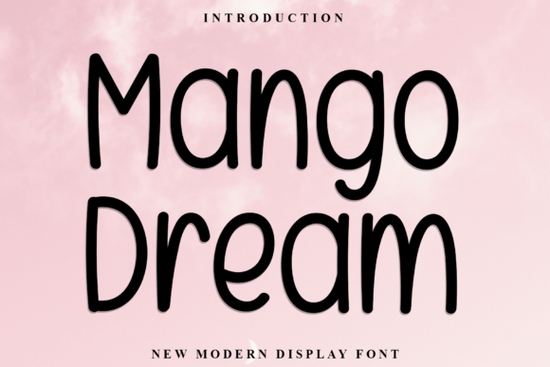
Mango Dream Font is a beautifully crafted handwritten font that brings a soft, personal touch to any design project. Whether you're working on logos, branding materials, or creative quotes, this font adds a unique and elegant flair. Its flowing letters and delicate details make it perfect for a wide range of applications, from digital art to print projects.
Designed with versatility in mind, Mango Dream Font is ideal for designers, crafters, and small business owners looking for a font that stands out without being overwhelming. The font’s natural, hand-drawn style gives your work a warm and inviting feel, making it a great choice for anything from wedding invitations to social media graphics.
What Makes Mango Dream Font Stand Out?
One of the key features of Mango Dream Font is its distinctive character. Each letter has a unique shape and flow, giving your designs a personalized and artistic look. This font isn’t just about aesthetics it’s also highly readable, which makes it suitable for both decorative and functional use.
The font includes a full set of uppercase and lowercase letters, along with numbers and basic punctuation. This ensures that you can use it for everything from short phrases to longer text blocks. Its clean yet expressive style makes it easy to pair with other fonts, allowing for creative and balanced layouts.
Best Uses for Mango Dream Font
If you're looking for a font that works well in multiple contexts, Mango Dream Font is an excellent choice. It's particularly popular for:
- Logo design
- Branding materials
- Quotes and motivational posters
- Wedding and event invitations
- Print-on-demand products
Its friendly and approachable style makes it a favorite among small businesses and creative hobbyists who want to add a personal touch to their work. Whether you're designing for a client or working on a personal project, this font can help elevate your visuals without needing a lot of extra effort.
How to Use Mango Dream Font Effectively
To get the most out of Mango Dream Font, consider pairing it with simpler, more neutral fonts for contrast. For example, using it alongside a sans-serif font like Lobster can create a balanced and modern look. This combination works well for headers and body text in web design or print layouts.
When using the font in digital projects, make sure to test it at different sizes to ensure readability. While it’s designed to be legible, some variations may require slight adjustments depending on the context. Always preview your work on different devices to see how it looks in real-world settings.
Whether you're a designer, a crafter, or a small business owner, Mango Dream Font is a valuable addition to your toolkit. Its elegant style and practical use make it a go-to choice for anyone looking to add a personal and artistic touch to their work.
Before you start using the font, take a moment to review the licensing terms to ensure it meets your specific needs. Once you’re ready, experiment with different combinations and layouts to see what works best for your projects.
Remember, the goal is to create something that feels authentic and engaging. With the right approach, Mango Dream Font can help you achieve that while keeping your designs fresh and original.
Take a look at other script fonts like Farmhouse Script or Bubble Font to see how they compare. These options might offer a different vibe that could complement your style or project requirements.
As you continue to explore your design options, keep in mind that the right font can make a big difference. Mango Dream Font is a great place to start if you're looking for something that’s both beautiful and functional.
Try using it in a few different projects and see how it fits with your existing designs. You might find that it becomes one of your go-to fonts for a variety of creative tasks.
Check out the font’s demo samples to get a better idea of how it looks in different sizes and formats. This can help you decide whether it’s the right fit for your next project.
Once you’ve had a chance to work with Mango Dream Font, consider sharing your experience with others. Your feedback can help fellow designers and creators make informed decisions about their own font choices.
Whether you're creating for yourself or for clients, taking the time to choose the right font can have a lasting impact on the quality and appeal of your work. Mango Dream Font is a great option that can help you achieve just that.
Start experimenting today and see how this font can bring a new level of creativity and expression to your designs.